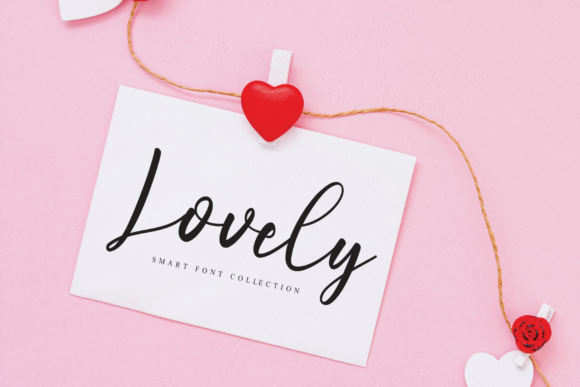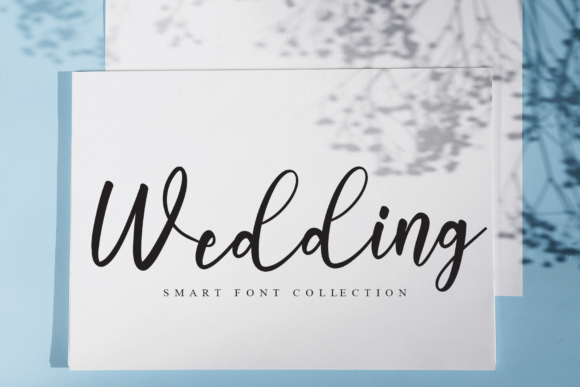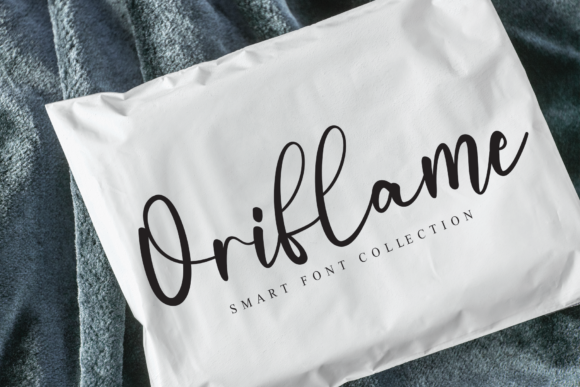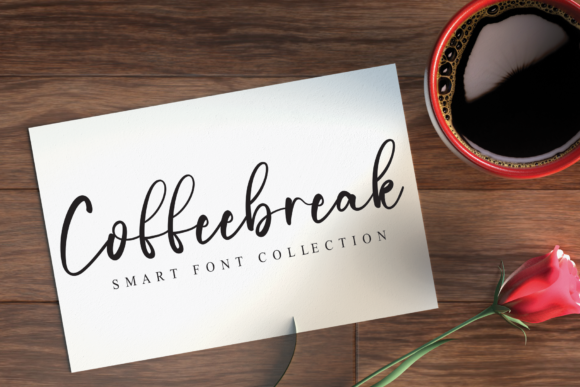
Signatures Font
About Signatures Font
Signatures is a beautiful and modern handwritten font. Use it to make your ideas even more realistic and create spectacular designs!